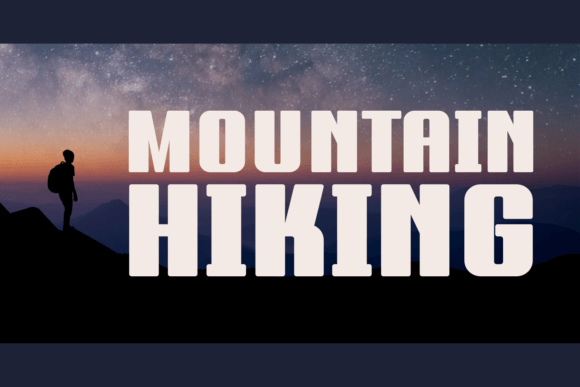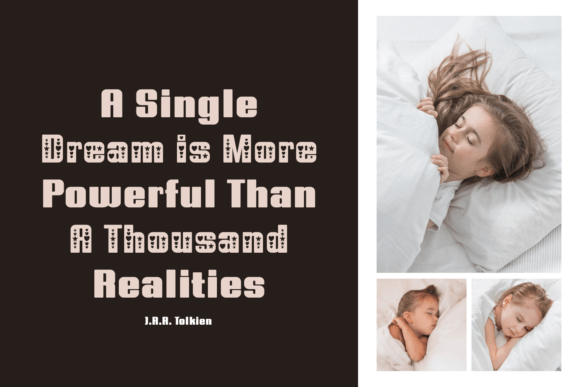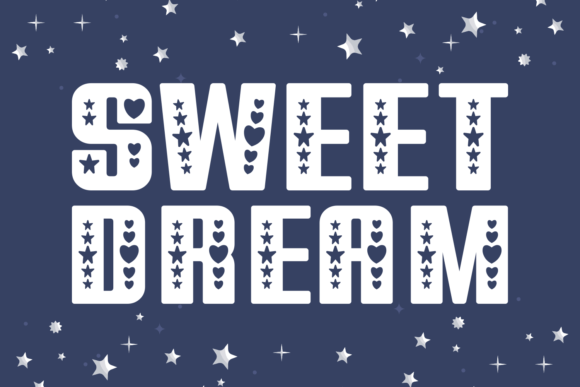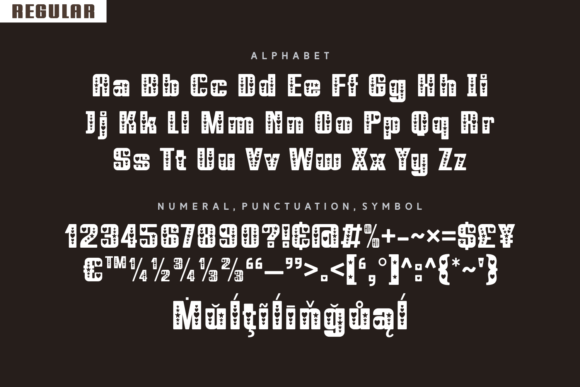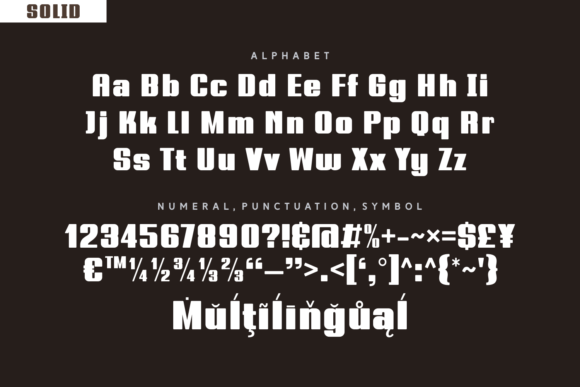
Introducing Elfrida Bright Font: Add a Touch of Sparkle and Romance to Your Designs
Are you looking for a font that can add a dash of magic and whimsy to your designs? Look no further than Elfrida Bright Font, a captivating typeface that features tiny stars and hearts inside the characters. This decorative and elegant font is perfect for designers and crafters who want to infuse their projects with a sense of romance and wonder.
The Unique Charm of Elfrida Bright Font
Elfrida Bright Font is a one-of-a-kind typeface that boasts a distinctive design. The font features tiny stars and hearts cleverly integrated into the characters, giving it a playful and enchanting feel. The intricate details and delicate design make it an ideal choice for projects that require a touch of sophistication and elegance.
Whether you’re working on a wedding invitation, a branding project, or a craft design, Elfrida Bright Font is sure to make your work stand out. The font’s unique charm and character will add a touch of personality to your designs, making them more engaging and memorable.
Elfrida Bright Font is a versatile typeface that can be used for a wide range of projects. Its decorative and elegant design makes it perfect for:
- Branding and packaging designs
- Craft designs, such as SVG files and iron-on transfers
- Digital art and illustrations
- Signage and display designs
The font’s solid style is available for any use, making it a great choice for designers and crafters who want to create a cohesive look across their projects.
Key Features of Elfrida Bright Font
Here are some of the key features that make Elfrida Bright Font a standout choice:
- Unique design featuring tiny stars and hearts inside the characters
- Decorative and elegant style
- Solid style available for any use
- Perfect for adding a touch of sparkle and romance to your designs
- Versatile and can be used for a wide range of projects
Tips for Using Elfrida Bright Font
Here are some tips for using Elfrida Bright Font in your designs:
- Use it as a headline font to add a touch of elegance and sophistication
- Pair it with a simple font for body text to create a striking contrast
- Experiment with different colors and textures to enhance the font’s decorative design
- Use it to add a touch of whimsy and playfulness to your designs
| Font Name | Elfrida Bright Font |
| Author | Andal (7NTypes) |
Elfrida Bright Font is a captivating typeface that is sure to add a touch of sparkle and romance to your designs. Its unique design, decorative style, and versatility make it a great choice for designers and crafters who want to create memorable and engaging projects. Whether you’re working on a wedding invitation, a branding project, or a craft design, Elfrida Bright Font is the perfect choice.